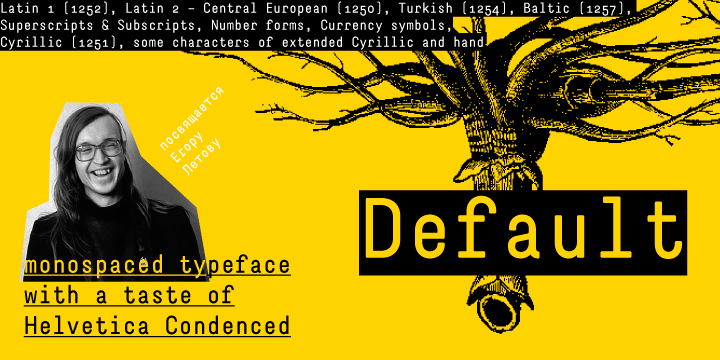
• Default™
Default is a static and condensed monospaced sans-serif.
It was the idea to create a stylistically neutral and simple typeface with a spirit of the present. Letterforms are simple and slightly rough. Little illogical things (serifs in‚ “r” and Cyrillic “ge”, the ascender of Cyrillic “be” and the Helvetica-like “a”) make impossible to Default to become a fashionable and module typeface, but add some warmth and naïvety to it. While monospaced forms and lack of contrast make a composed type to look restrained and clean.
Default is destined to be a typeface by default.